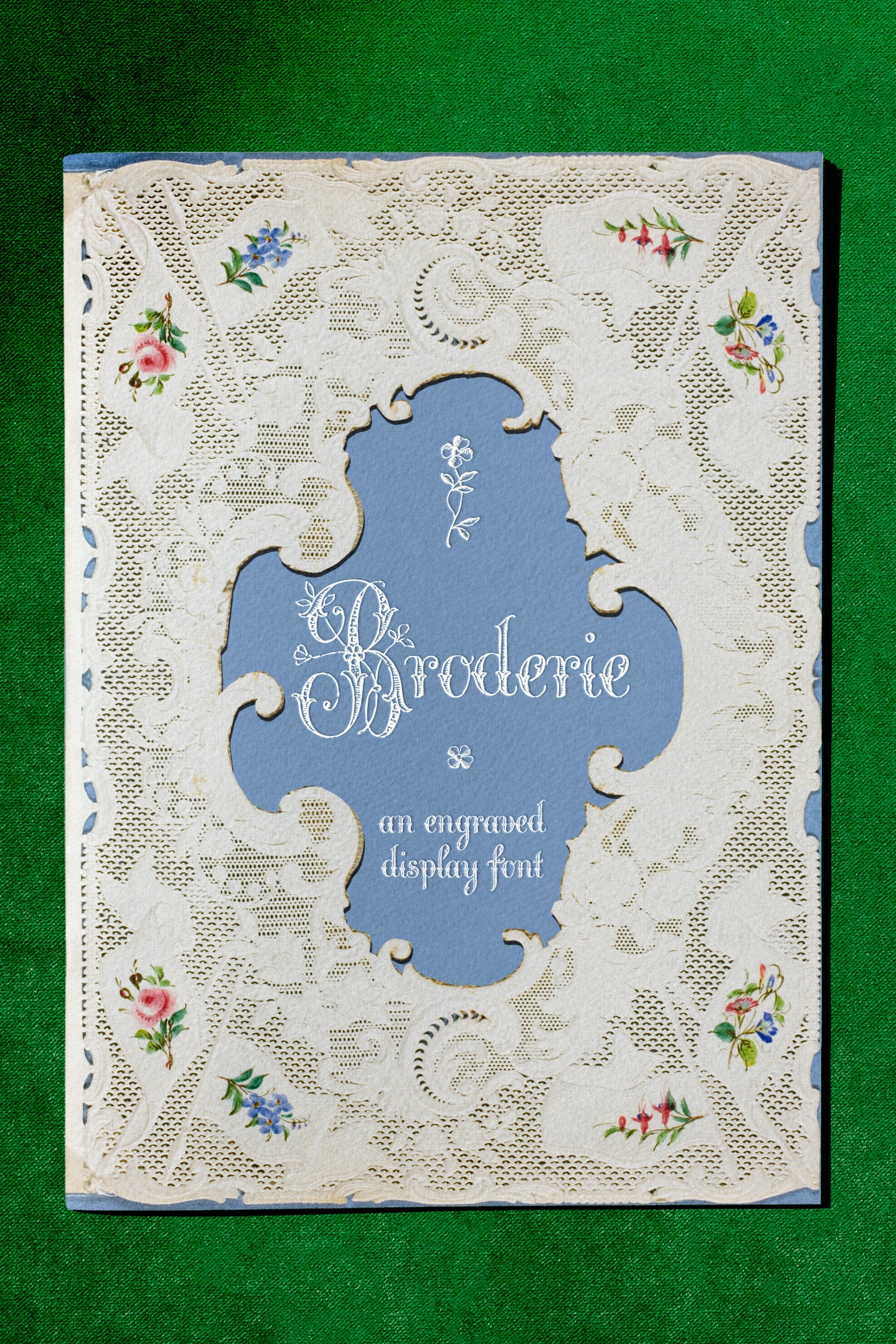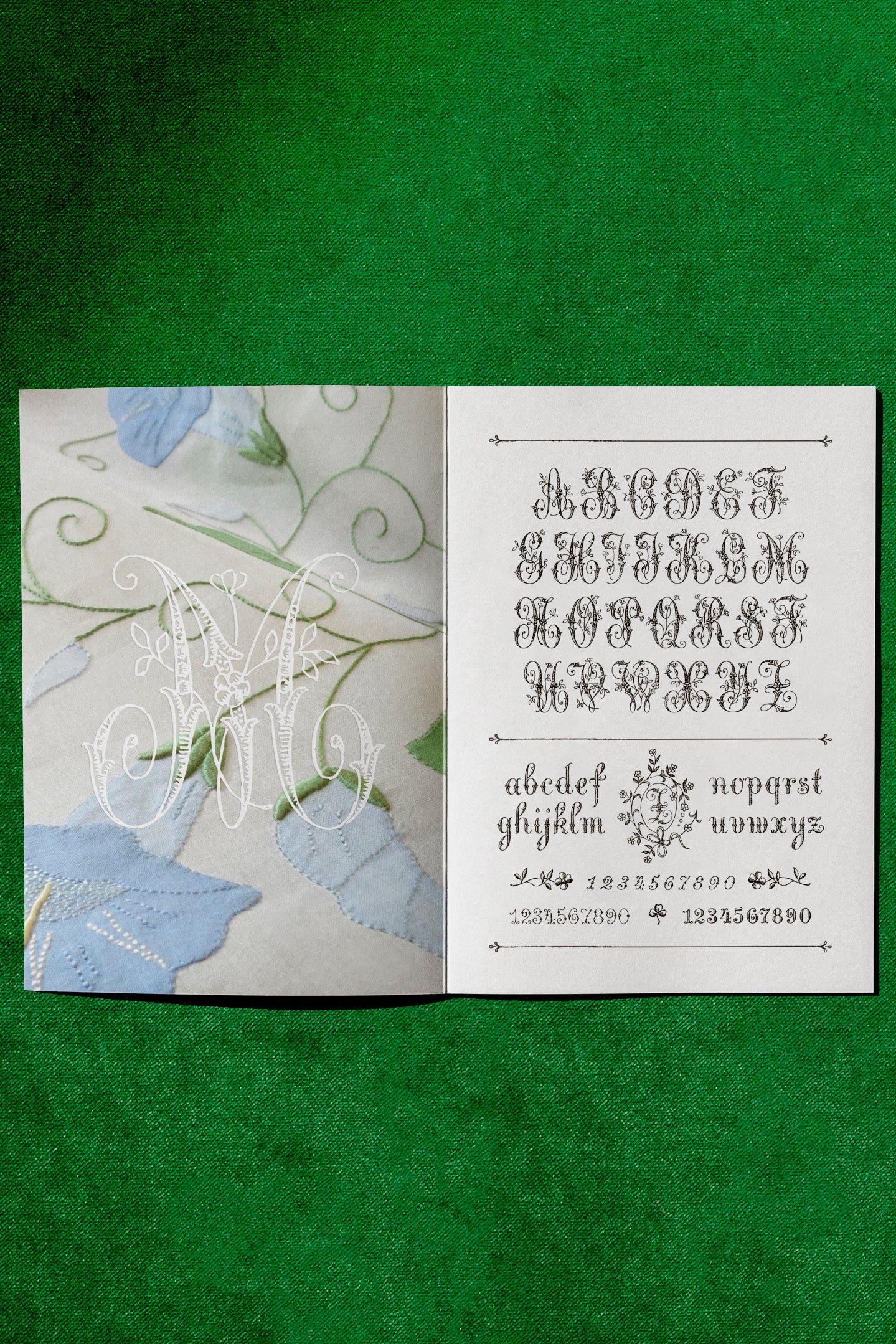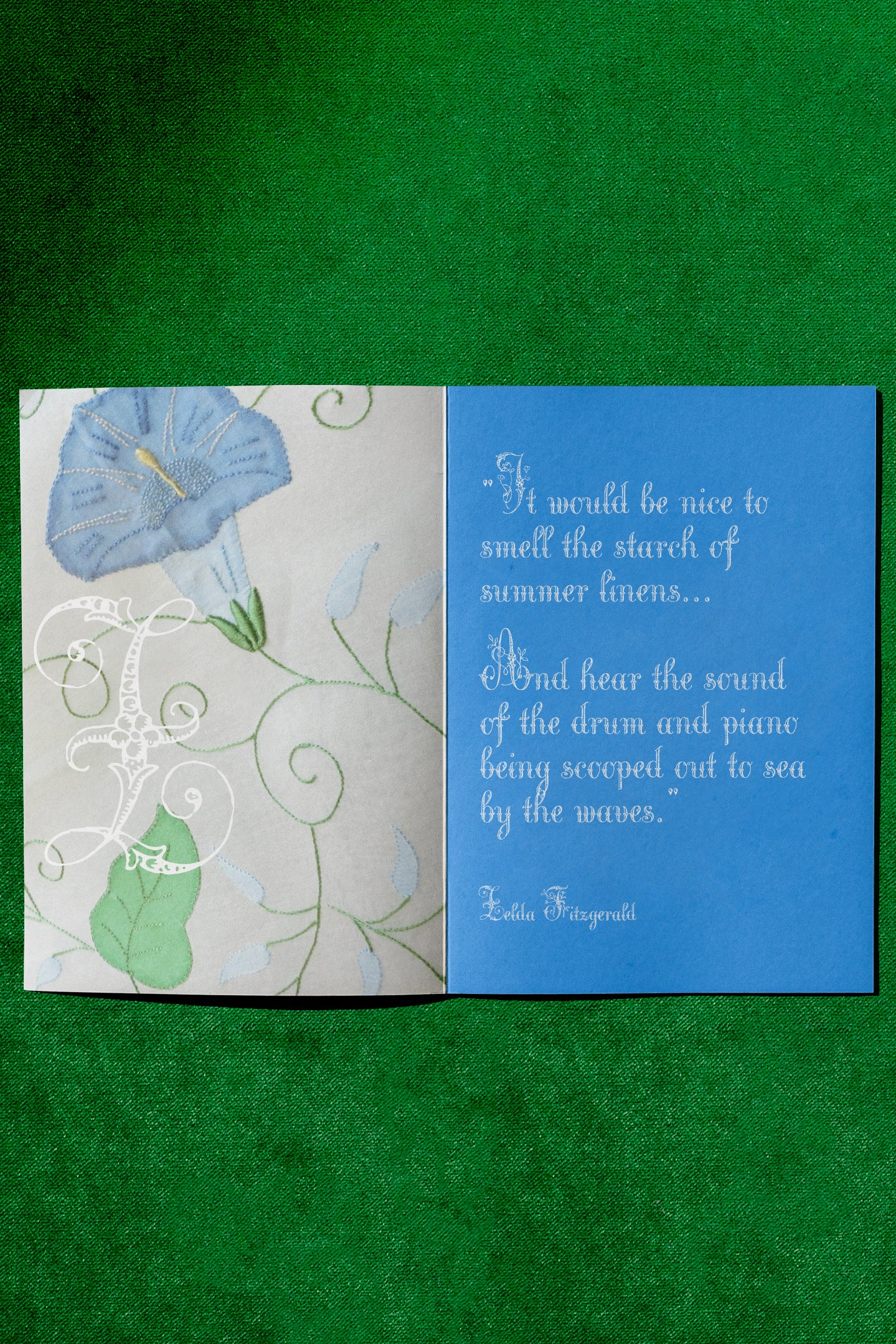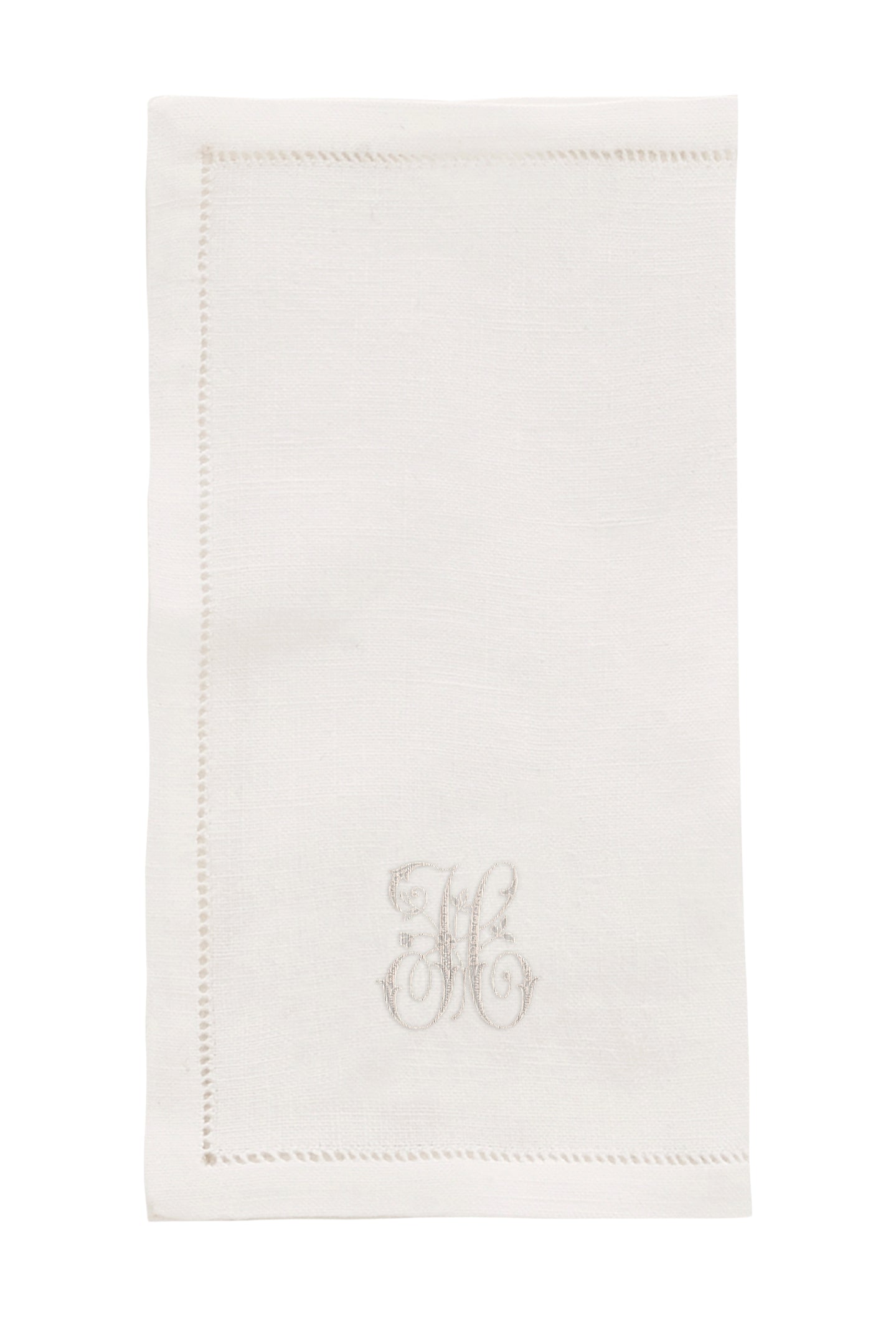
Broderie Display: An Engraved Font
An exquisite engraved font from the studio of Stephanie Fishwick, this display font was created using a found antique embroidery style. Digitized and expanded into a full upper and lowercase font. Includes numbers 0-9, two extra number sets, basic punctuation and lots of extra decorative elements. Made especially with monograms in mind.
Alphabet
- Uppercase A-Z
- Lowercase a-z
- Basic punctuation
Numbers 0-9
Decorative Glyphs
- Borders, flowers and decorative elements
- Two alternate number styles